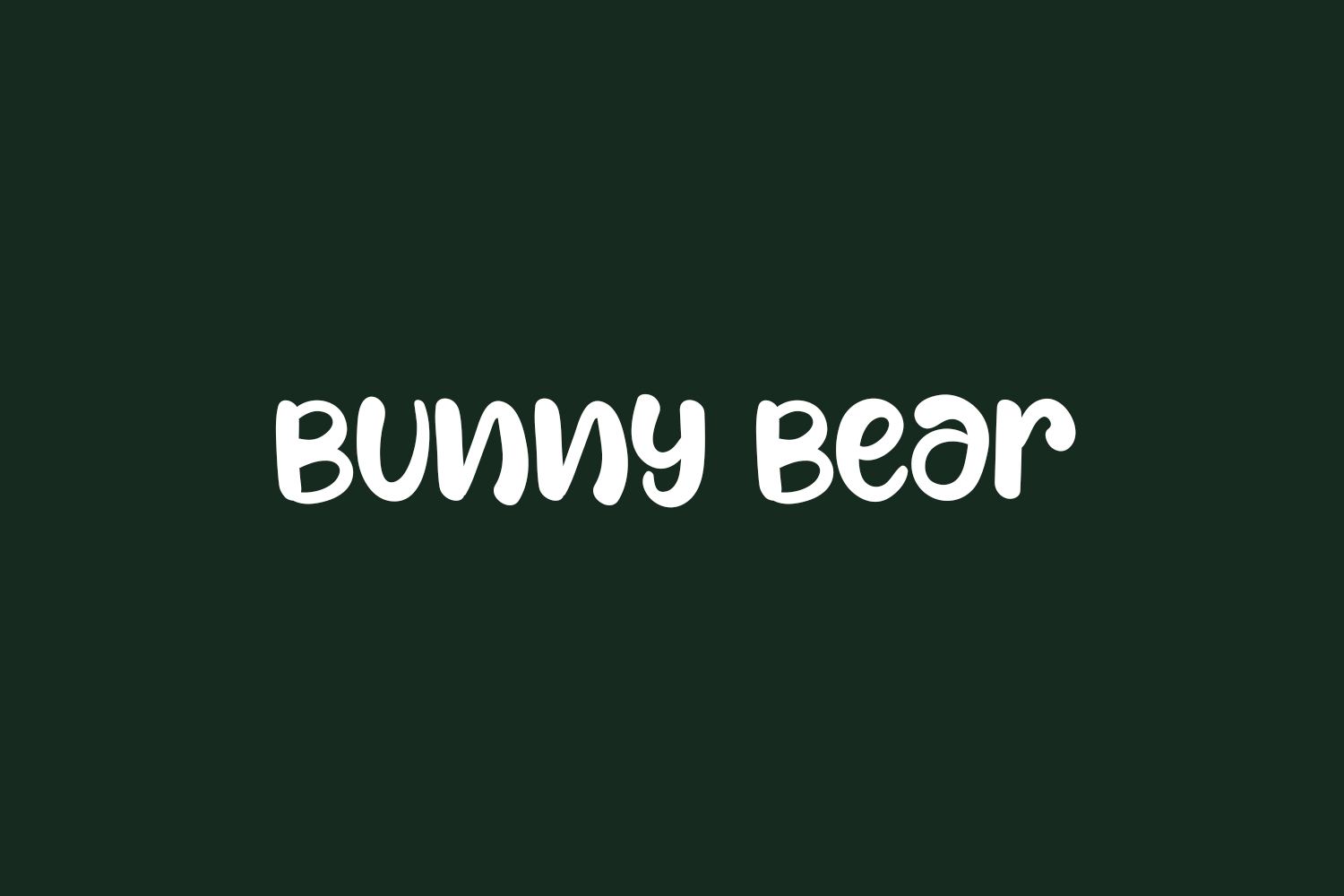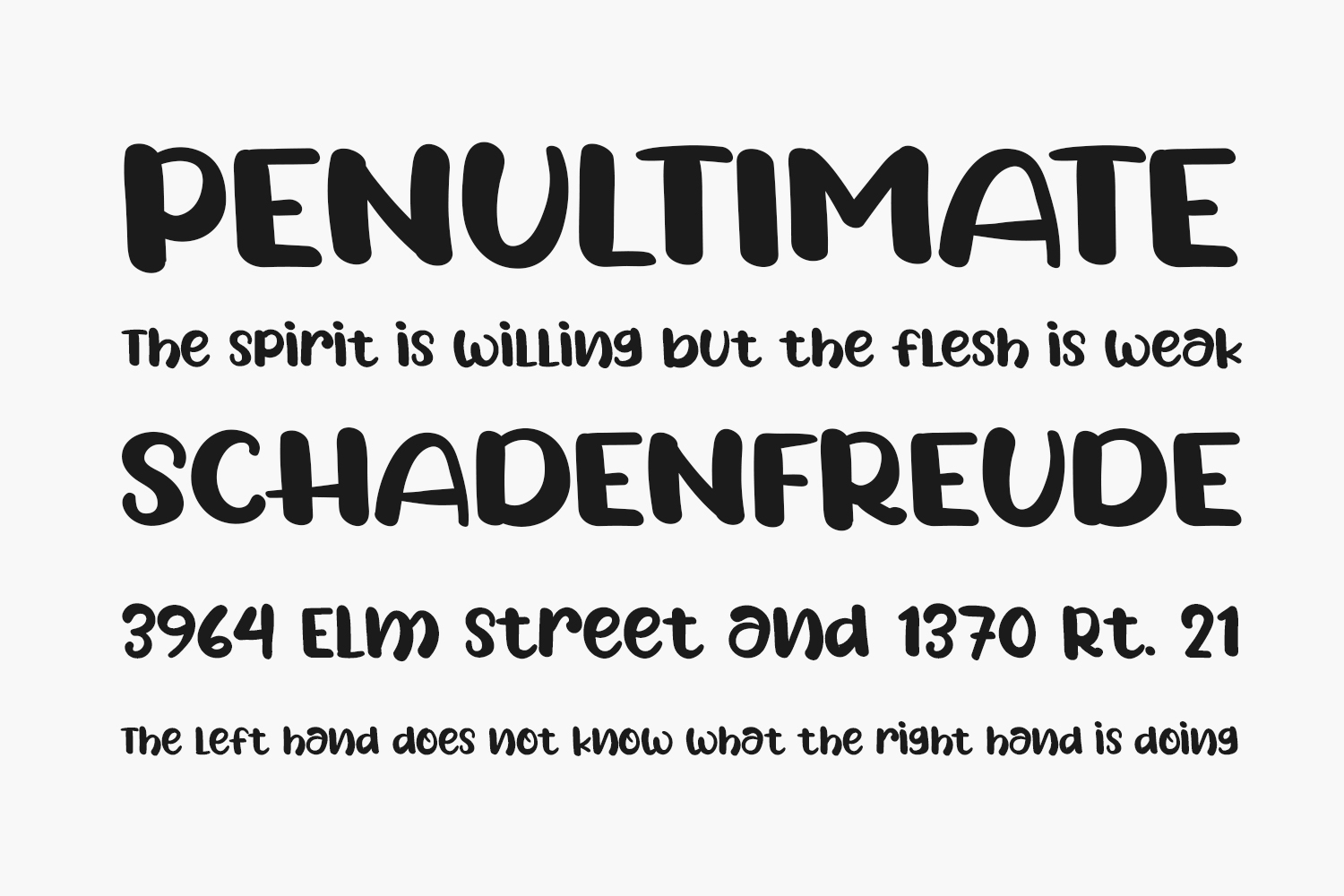
Bunny Bear Free Font is a cute and fun handwritten font. Get creative with its childlike playfulness, and use it to brighten up any kids and school project. Bunny Bear Free Font was designed by Erik Studio and is free for personal use only. Please purchase the full version for commercial use.